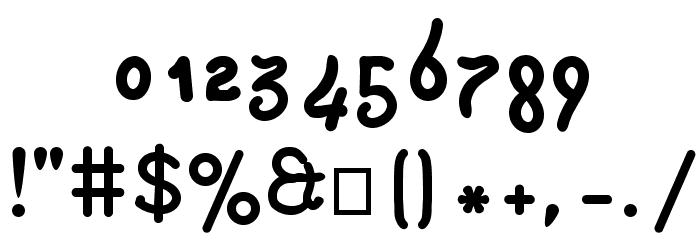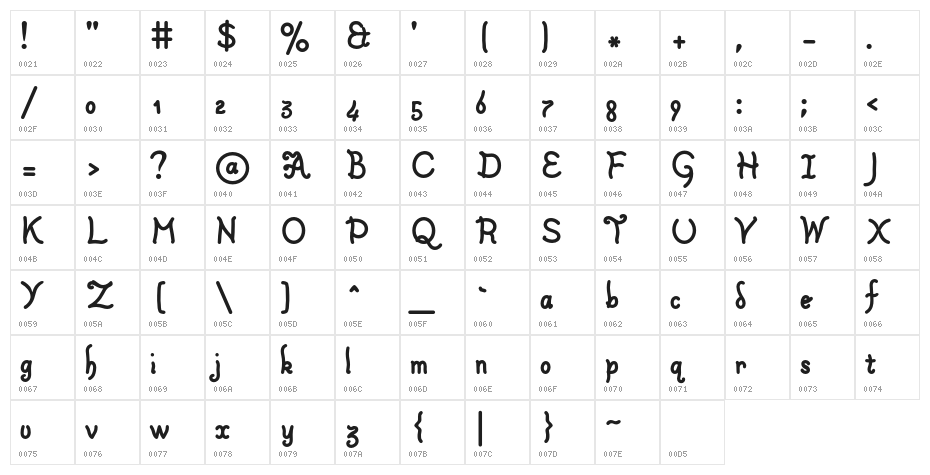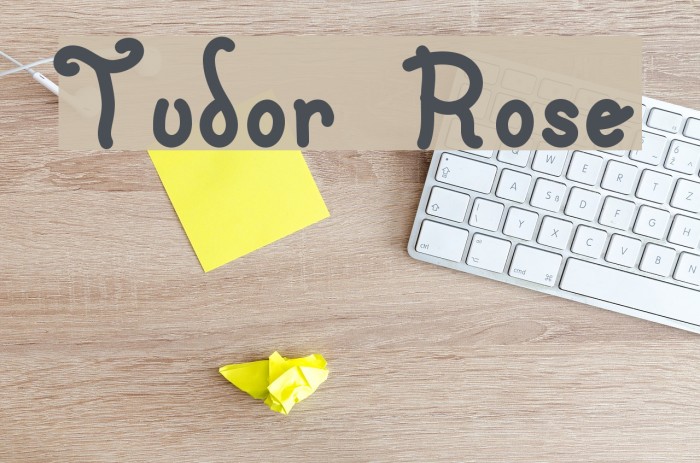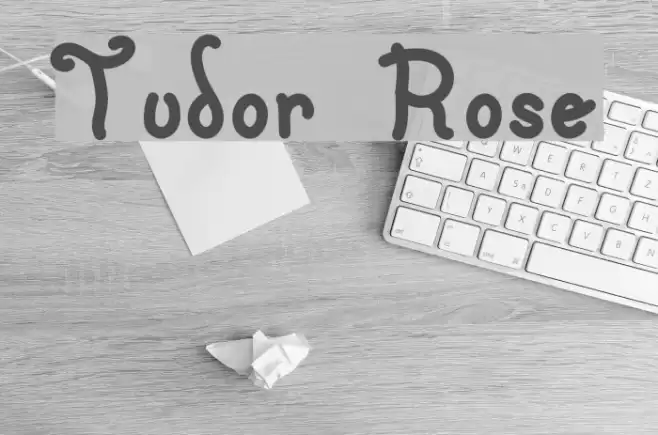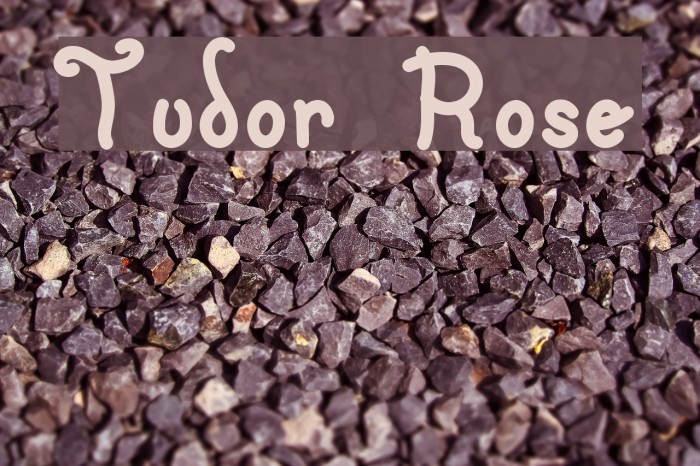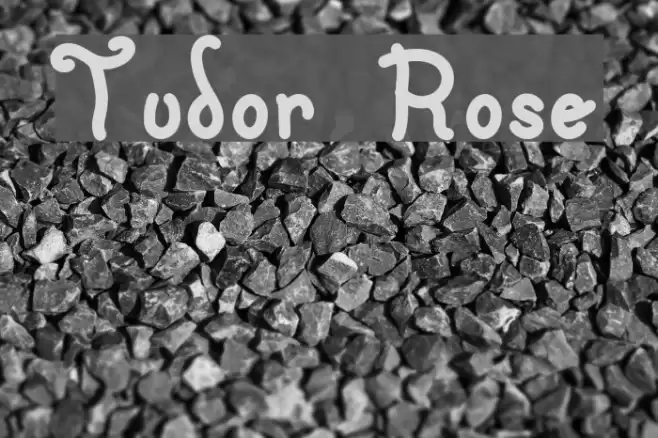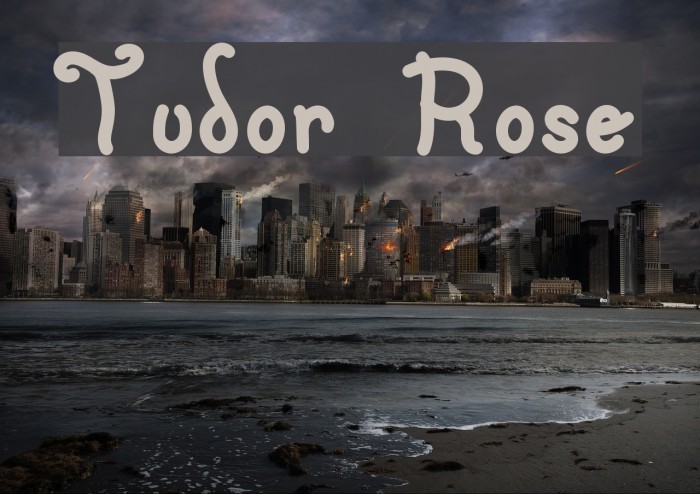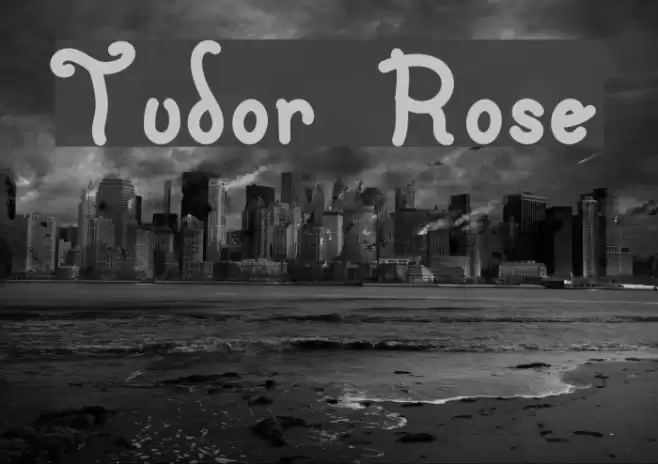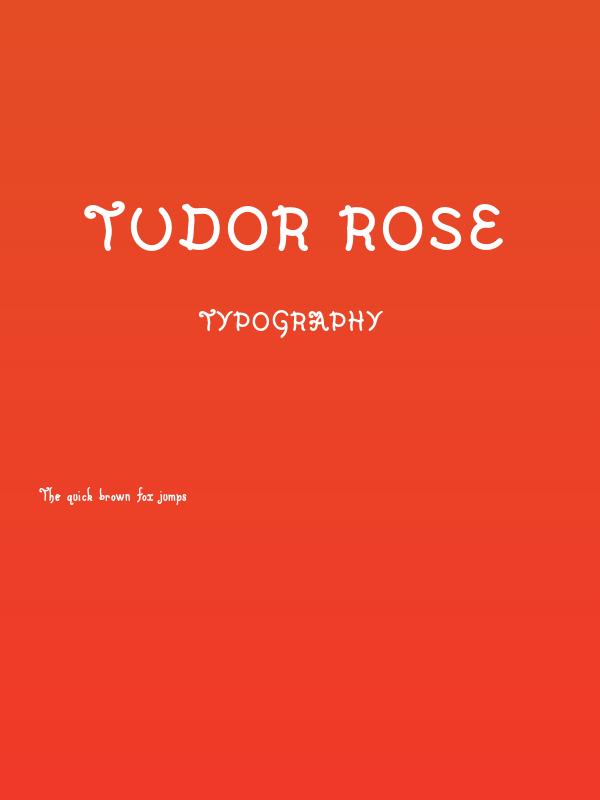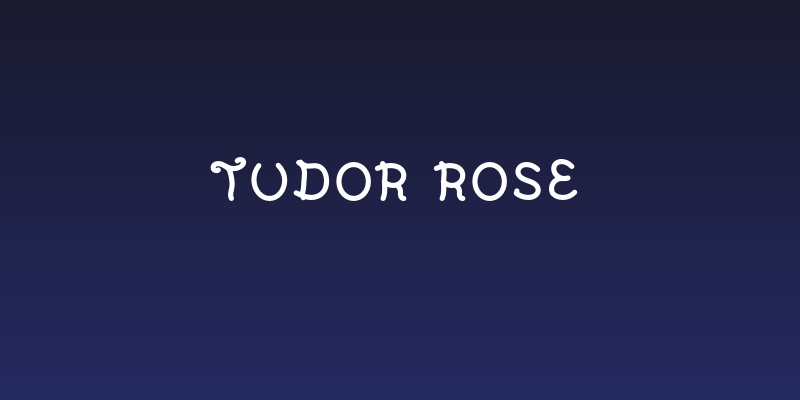
Tudor Rose Font
Tudor Rose Description
This font features a whimsical and decorative style with a playful touch. The characters are bold and have a hand-drawn appearance, with unique flourishes and curves that give it a distinctive personality. The uppercase letters are ornate, with some incorporating floral-like elements, while the lowercase letters maintain a consistent, rounded form. Numbers and special characters follow the same playful and decorative theme, making the font suitable for creative and artistic projects. The overall appearance is both charming and eye-catching, ideal for adding a touch of fun to any design.
| Proposed Projects | Ideal for children's books, greeting cards, playful branding, and artistic posters. |